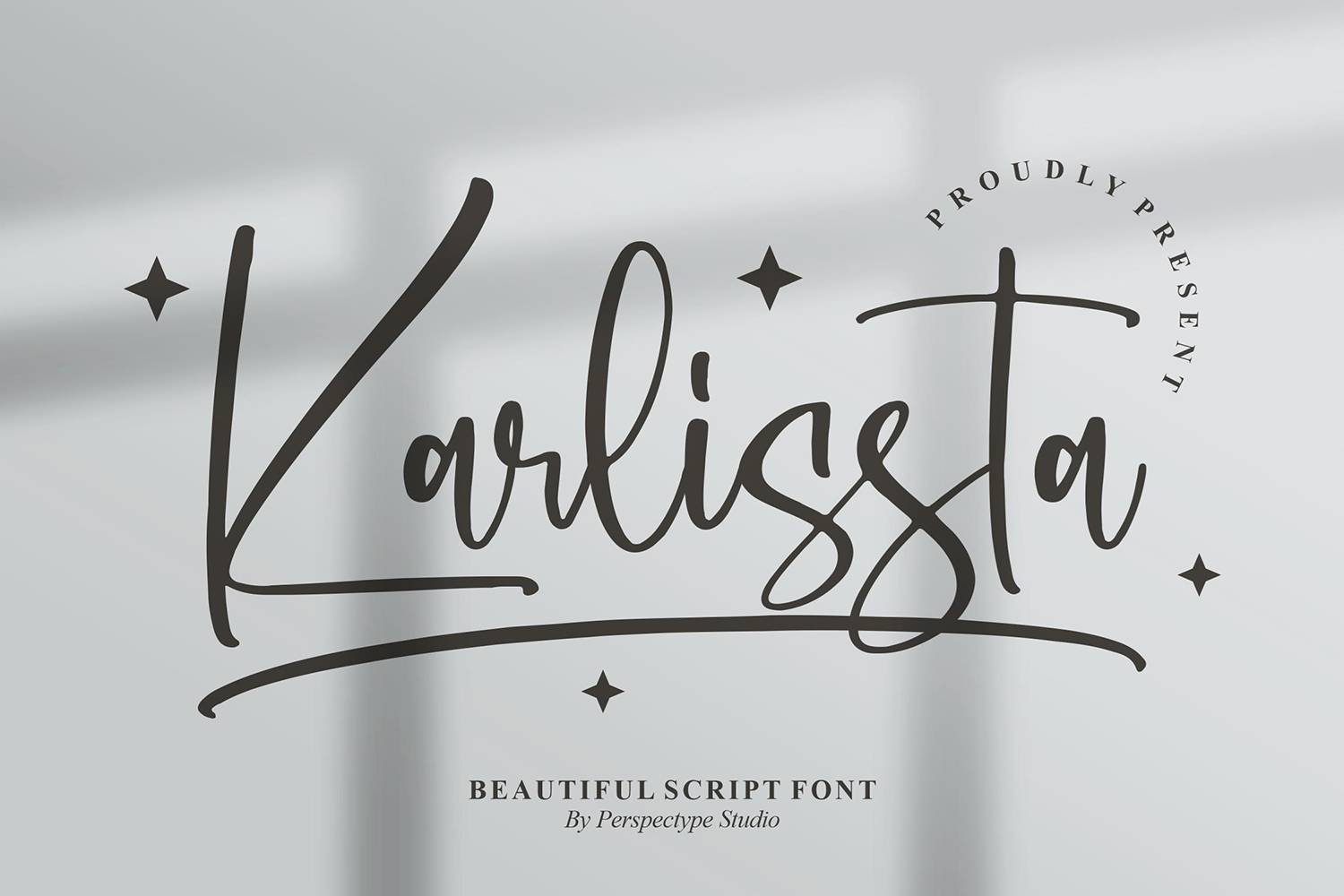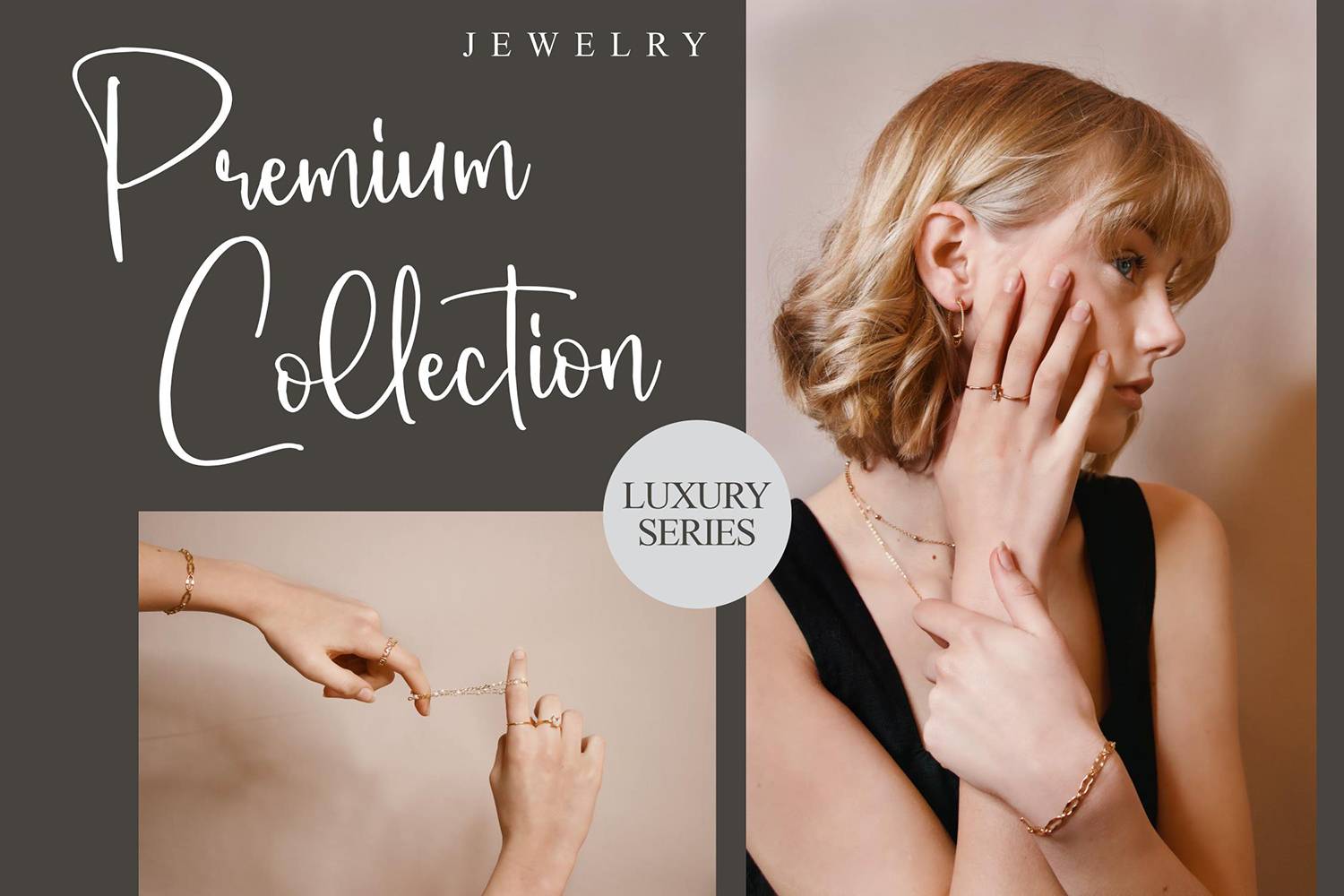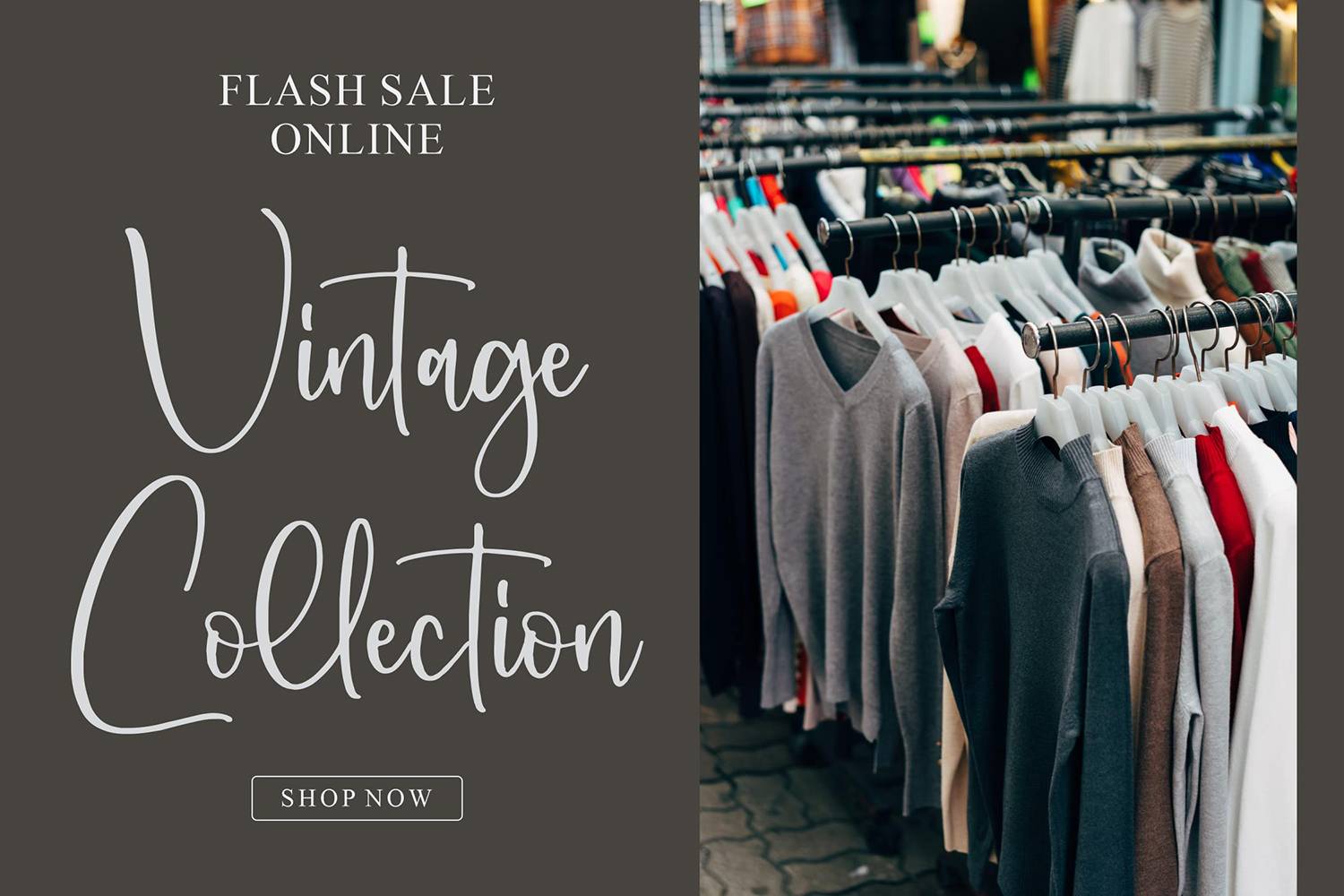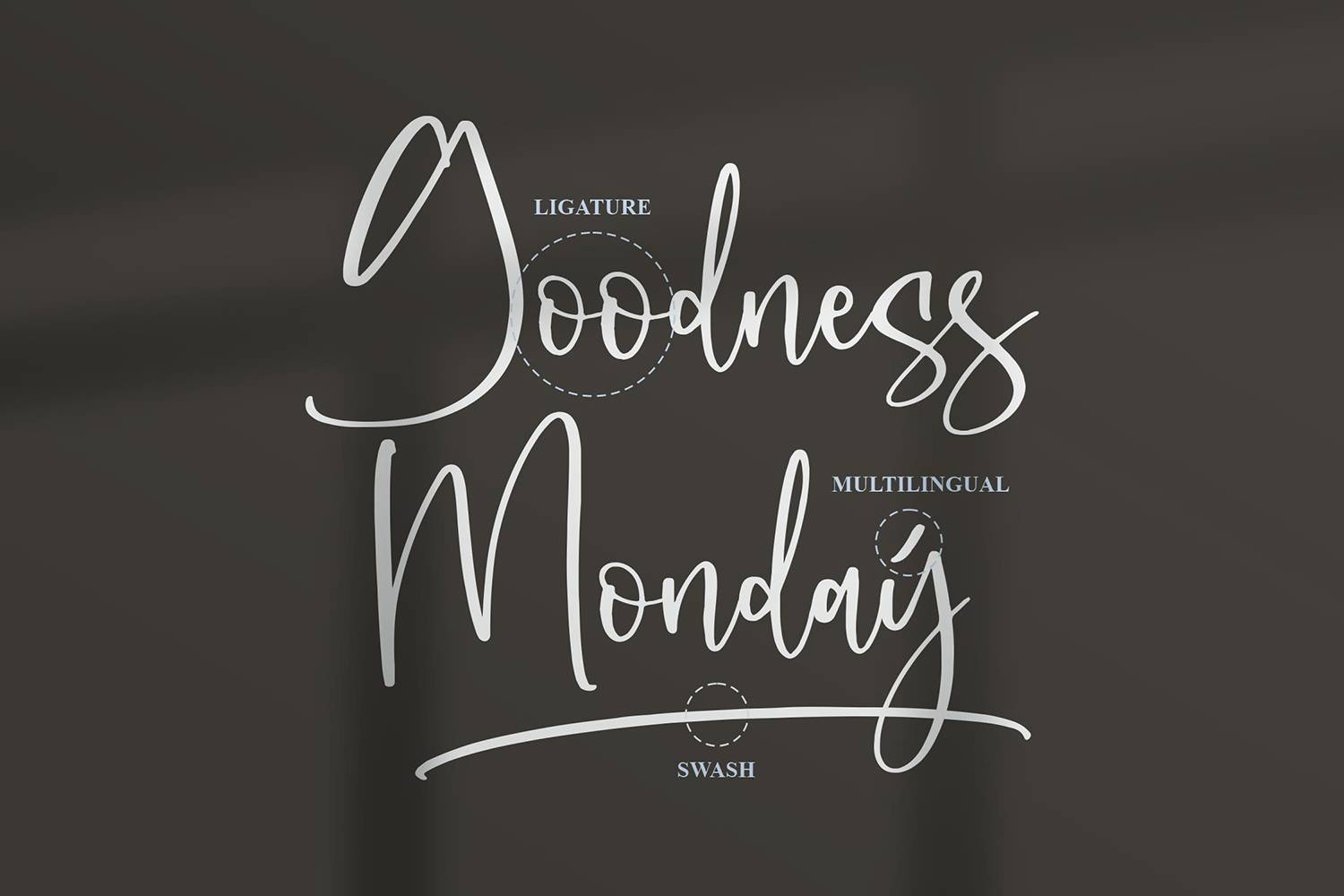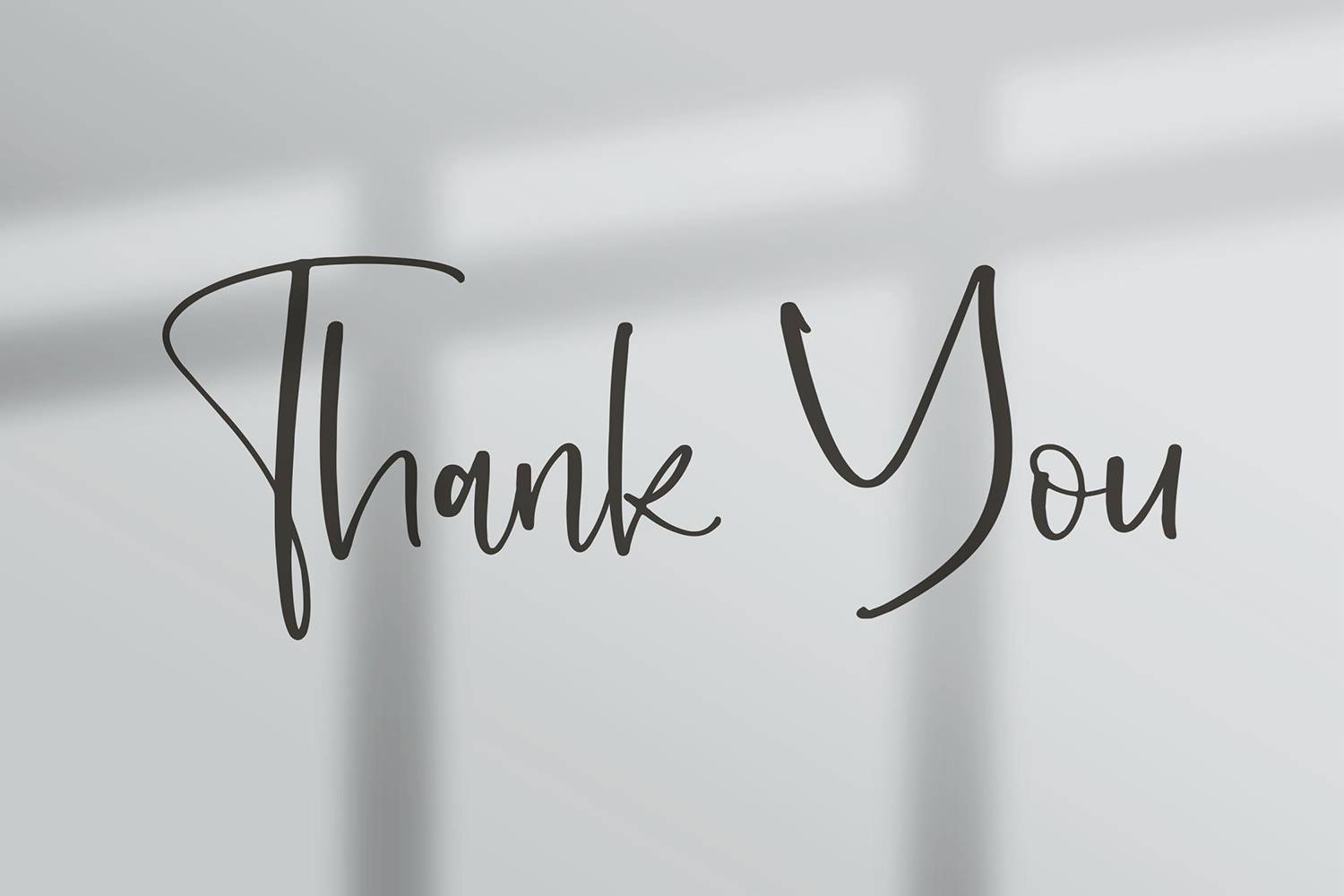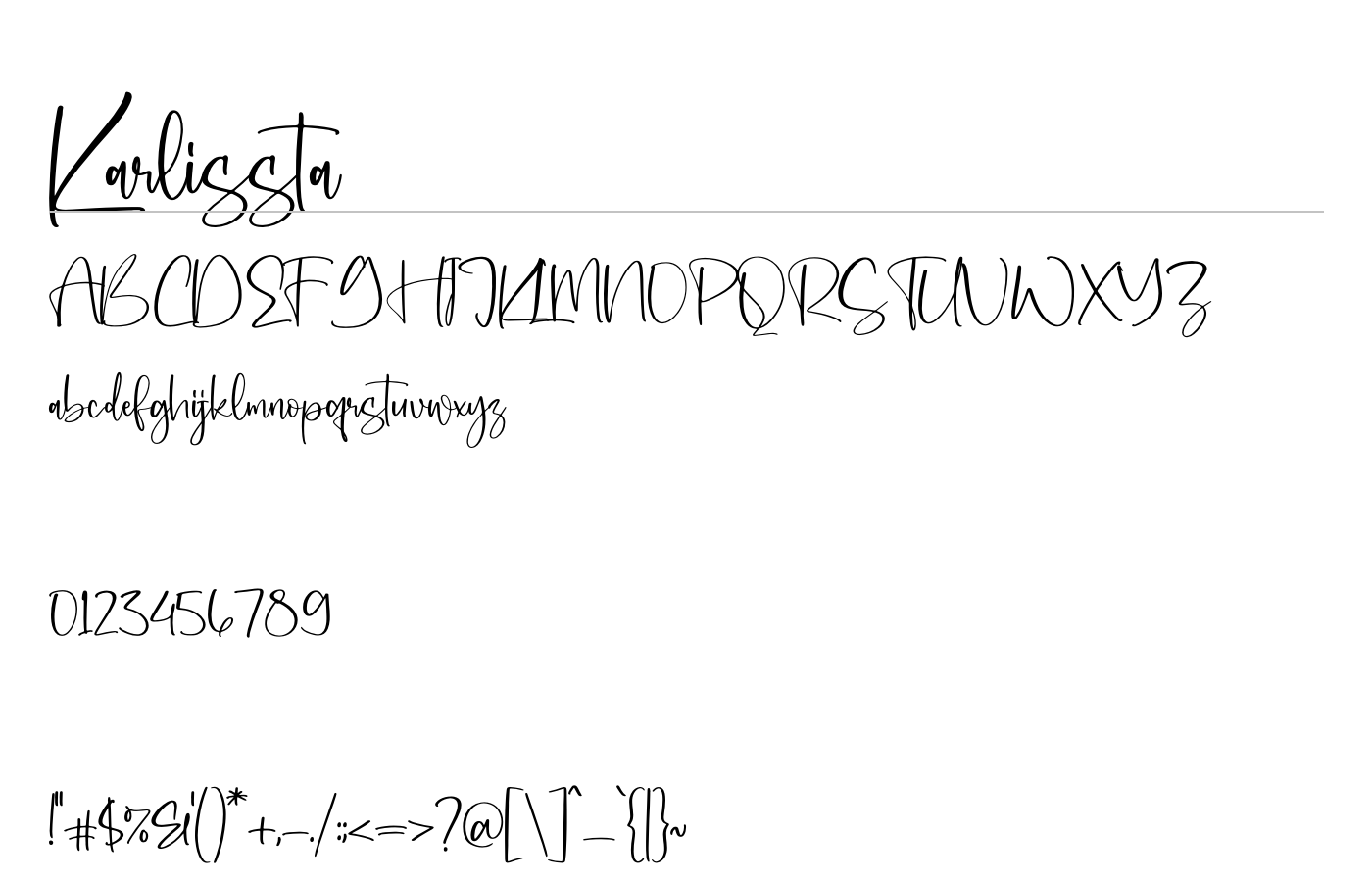
Karlissta is a delicate, handwritten script font characterized by its thin, flowing strokes and playful, irregular letterforms. Its tall x-height and casual style give it a youthful, personal feel, making it ideal for creative branding, invitations, and lifestyle projects that seek a friendly yet elegant touch. The font’s airy spacing and unique letter shapes add charm and uniqueness, perfect for adding a handcrafted flair to designs.
Karlissta Font
About Karlissta Font